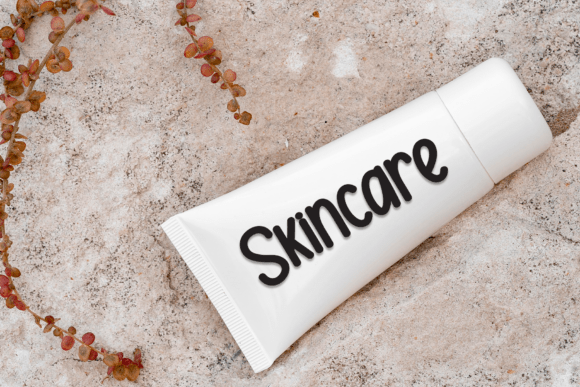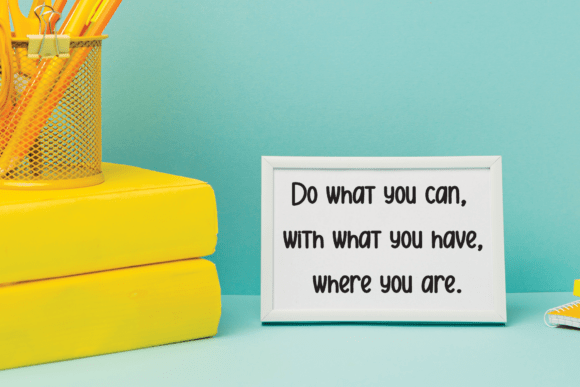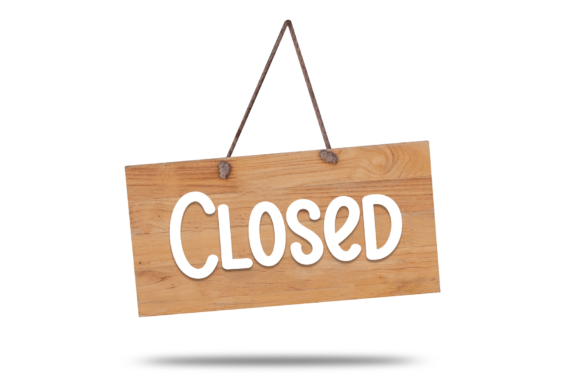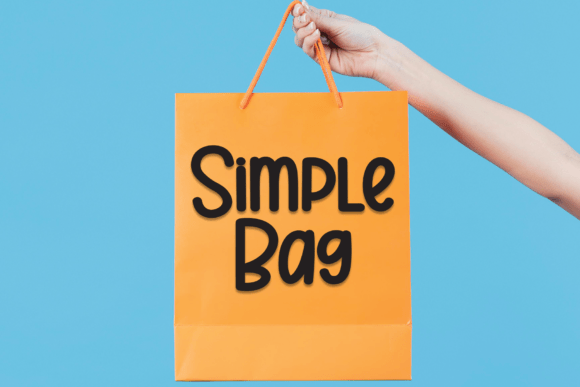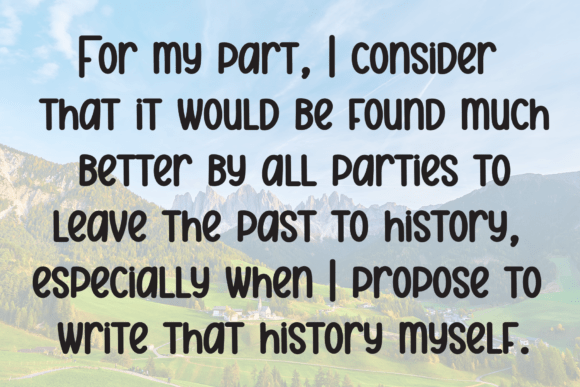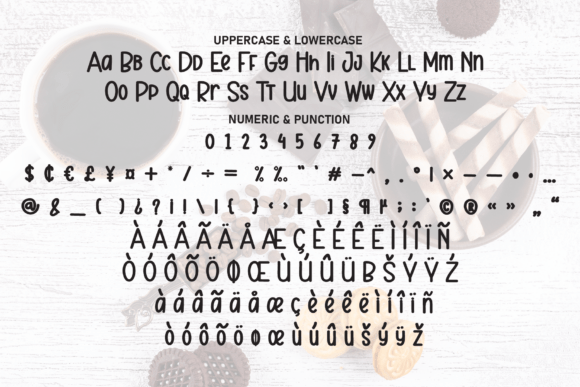
Coffee Chocolate Font: The Sweetest Addition to Your Design Collection
Are you tired of using the same old fonts in your designs? Look no further! Introducing the Coffee Chocolate Font, a handcrafted display font that brings a perfect balance of sweetness and amiability to your creations. This delightful font is designed to add a cute yet fun flair to any design, transforming it into an enchanting piece of art.
The Perfect Blend of Whimsy and Charm
Coffee Chocolate Font is the ultimate tool for designers and crafters who want to infuse their designs with a joyful touch. This handwritten display font is perfect for creating romantic wedding invitations, whimsical greeting cards, and other designs that require a personal and playful touch. With its unique and charming allure, this font is sure to make your designs stand out from the crowd.
Key Features of Coffee Chocolate Font
- Handcrafted with love: Each letter has been carefully crafted to ensure a unique and personal touch.
- Perfect balance of sweetness and amiability: This font exudes a sense of warmth and friendliness, making it perfect for designs that require a personal touch.
- Cute yet fun flair: Coffee Chocolate Font adds a playful and whimsical touch to any design, making it perfect for creative projects.
- Multipurpose: This font can be used for a variety of designs, including wedding invitations, greeting cards, posters, and more.
Use Cases for Coffee Chocolate Font
Coffee Chocolate Font is a versatile font that can be used for a variety of design projects. Here are some use cases to get you started:
- Wedding Invitations: Add a romantic and whimsical touch to your wedding invitations with Coffee Chocolate Font.
- Greeting Cards: Create fun and playful greeting cards for birthdays, holidays, and other special occasions.
- Posters and Flyers: Use Coffee Chocolate Font to create eye-catching posters and flyers for events, promotions, and more.
- Social Media Graphics: Add a personal touch to your social media graphics with Coffee Chocolate Font.
Why Choose Coffee Chocolate Font?
With so many fonts available, why choose Coffee Chocolate Font? Here are a few reasons why this font stands out:
- Unique and handmade: Coffee Chocolate Font is a one-of-a-kind font that adds a personal touch to any design.
- High-quality: Coffee Chocolate Font is a high-quality font that is designed to produce crisp and clear results.
Get Ready to Fall in Love with Coffee Chocolate Font
In conclusion, Coffee Chocolate Font is a must-have for designers and crafters who want to add a personal and playful touch to their designs. With its unique and handmade design, this font is perfect for a variety of creative projects. Whether you’re creating romantic wedding invitations or whimsical greeting cards, Coffee Chocolate Font is the perfect choice. So go ahead, get creative, and let the magic of Coffee Chocolate Font inspire your next design project!